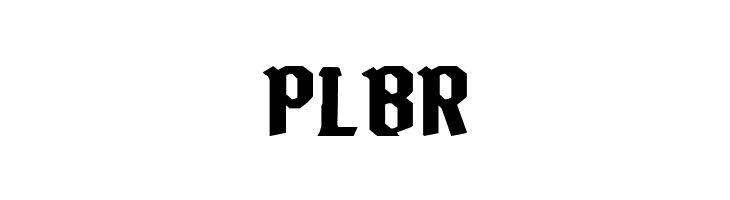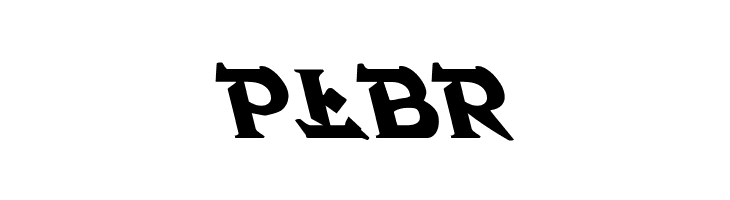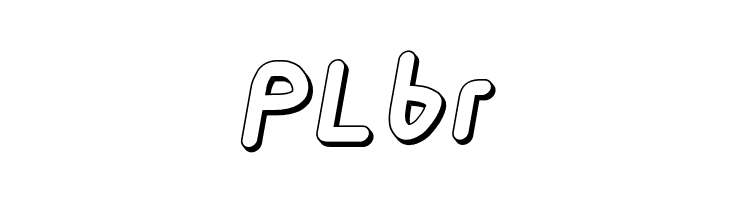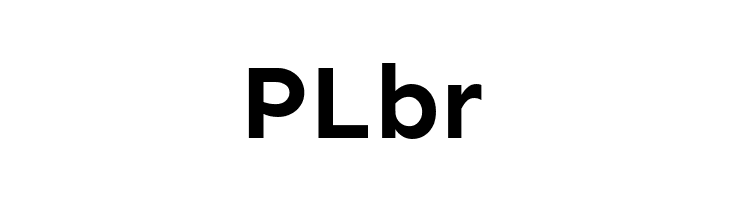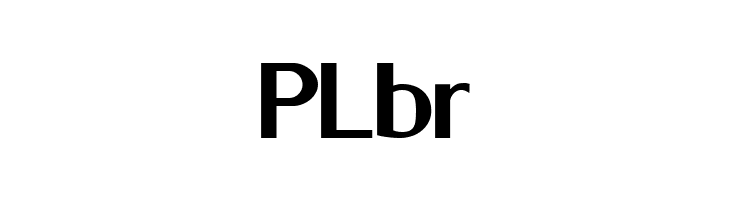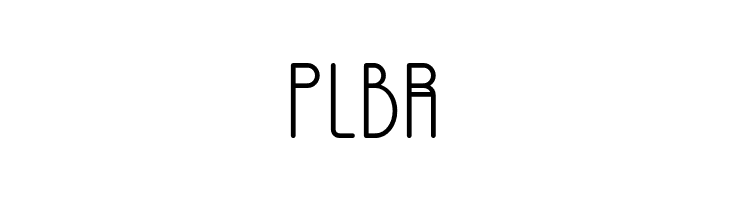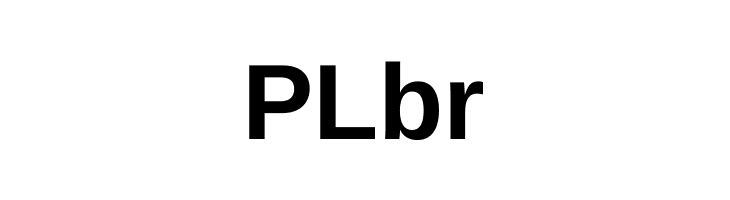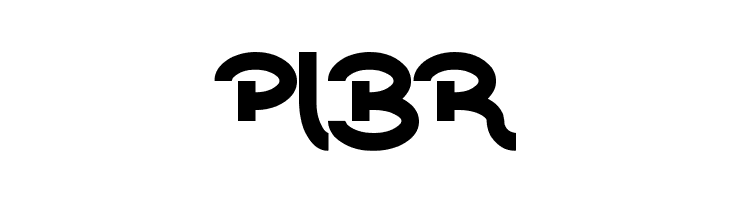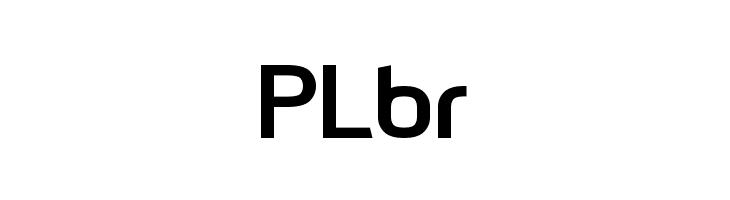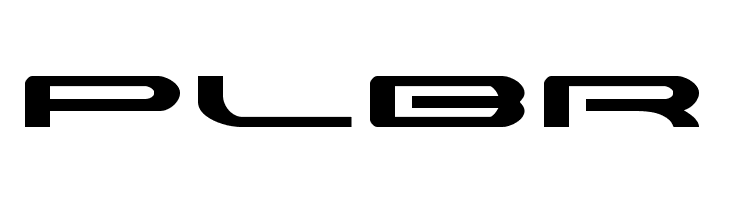
A clean, modern typeface with geometric influences and excellent readability.
A modern sans-serif font with geometric influences and uniform stroke width.
A bold, angular font with a Gothic influence and strong geometric shapes.
A bold, angular font with a gothic influence and leftward slant.
A bold, modern sans-serif font with geometric influences and strong readability.
A bold, modern sans-serif font with clean lines and geometric influence.
A geometric and decorative font with Art Deco influences, featuring elongated letterforms and rounded edges.
A bold, modern sans-serif font with geometric influences and uniform stroke weight.
A bold, italicized font with angular, geometric design and Art Deco influences.
A bold, geometric font with Art Deco influences, perfect for striking designs.
A futuristic, expanded font with geometric influences and consistent stroke width.
A modern italic font with geometric influences and a dynamic, bold style.
An elegant italic font with calligraphic influences and moderate stroke contrast.
A bold, angular font with a medieval gothic influence.
A bold, condensed font with sharp, angular edges and a gothic influence.
A dramatic, narrow outline font with a gothic influence.
A bold, ornate font with blackletter influences and a modern slant.
A bold, gothic-style font with blackletter influences and ornate detailing.
A sleek, modern font with geometric influences and sharp angles.
A bold, stencil-like font with geometric influences and strong visual impact.
A bold, geometric font with Art Deco influences, perfect for striking headlines and logos.
A bold, decorative font with blackletter influences and star embellishments.
A bold, modern sans-serif font with thick strokes and a geometric influence.
A modern-vintage font with curved, elongated letterforms and art deco influences.
An ornate, geometric font with gothic influences and intricate detailing.